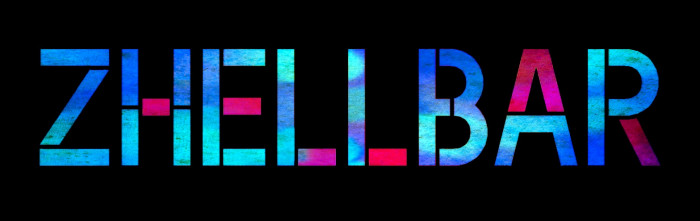
Uppercase font with some alternates in the lowercase zone. You can find an extra third "S" in the "t" glyph. See also zhellbars, the striped version.
The font downloaded as .ttf or .otf files can work as a normal stencil too.
Inspired, in a certain way, by the work "The Ghost in the Shell" by the great mangaka Shirow Masamune.